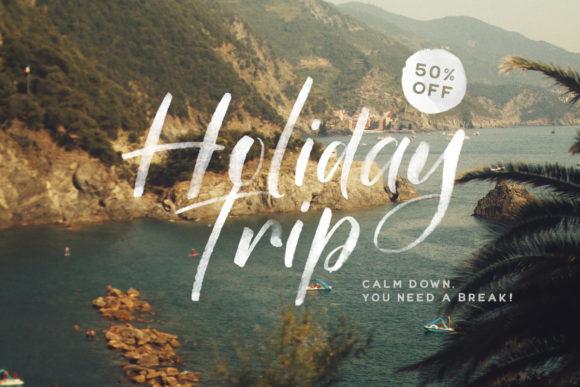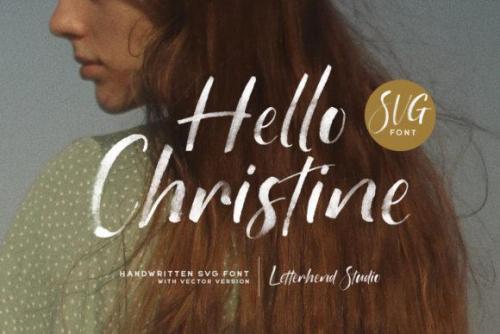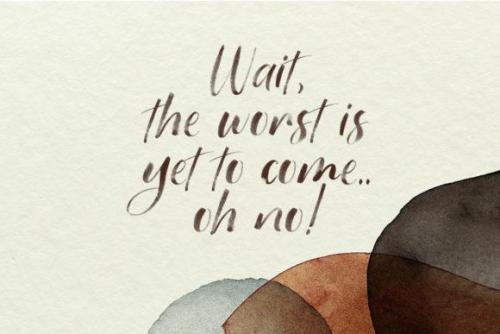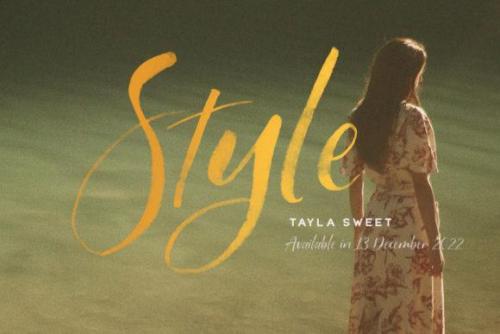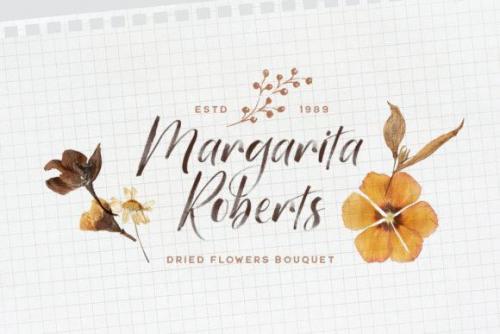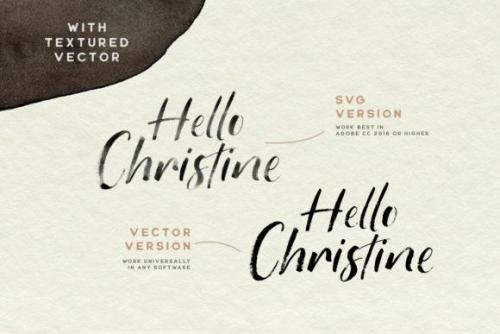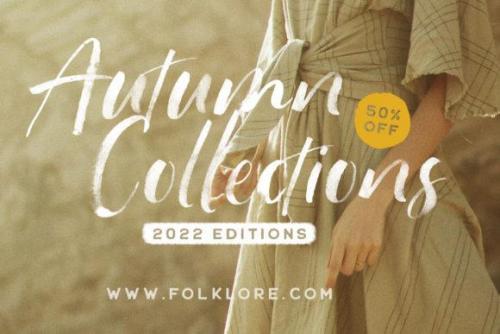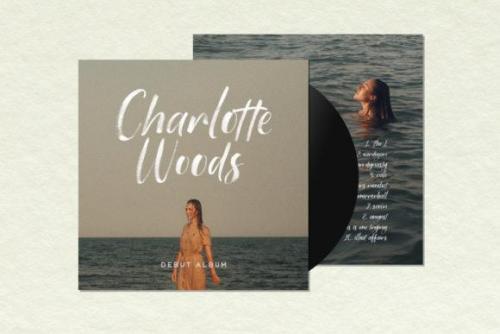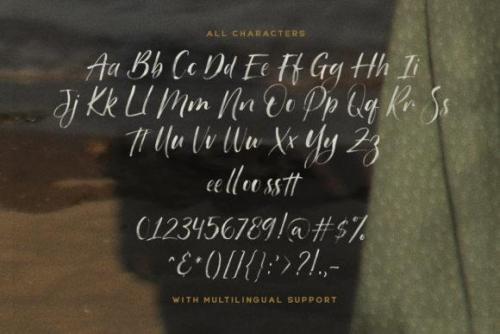
Hello Christine is a unique and delicate handwritten font, created with the help of a chalk like brush. It looks stunning on wedding invitations, thank you cards, quotes, greeting cards, logos, business cards and every other design which needs a handwritten touch.
- Designer: letterhend